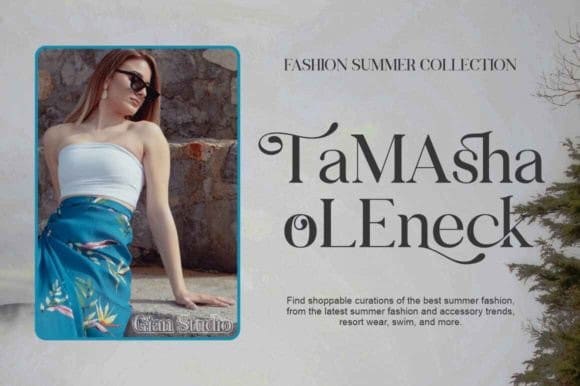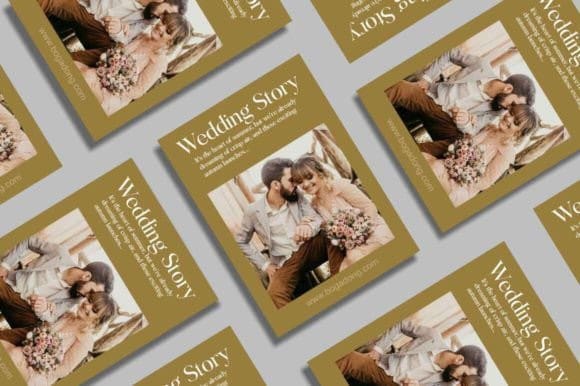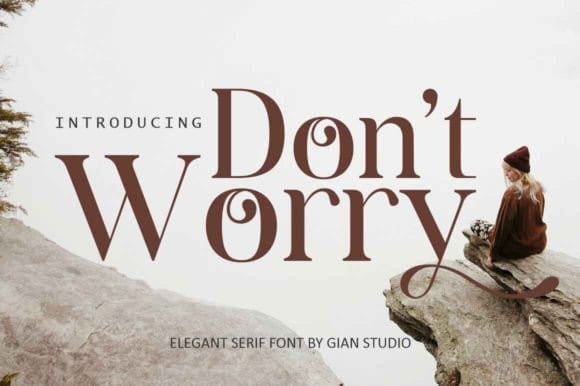
Dont Worry Font
Dont Worry Font is not just a typeface; it’s a statement. When you convert it to upper and lower case, something magical happens. It transforms into a powerful typeface, exuding power and authority with every bold stroke and charming curve. Each letter stands tall, making its presence known with unwavering confidence.
This type of letter is very suitable for use when you need to give a bold impression. Even if it’s a magazine headline, book cover, or billboard, Don’t Worry demands attention and leaves a lasting impression. Its bold and elegant appearance elevates even the simplest text, turning it into a masterpiece.